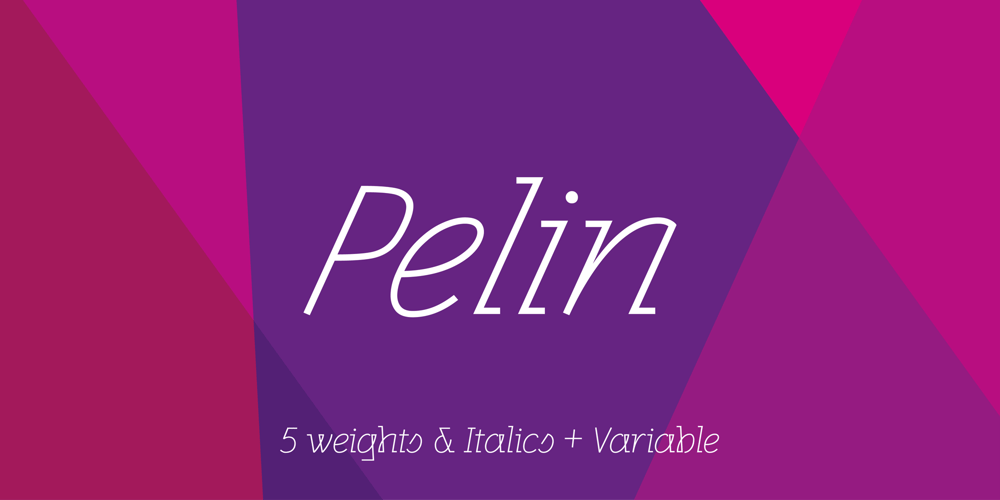
Pelin Font Family was designed by Koray Özbey and published by Koray Özbey. Pelin contains 11 styles and family package options. The design of Pelin, which began as an experiment, inspired by the harmony created by the contrast between the soft, flowing movements and sharp movements found in Circassian dances. To capture this harmony, both curved and sharp lines were used along with stems that contrasting angles.